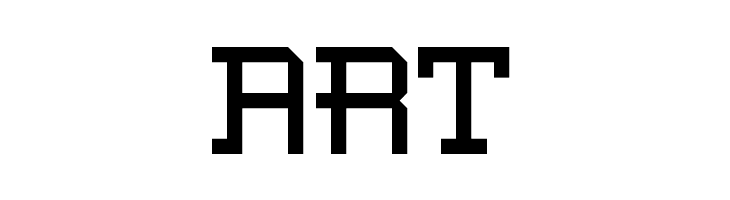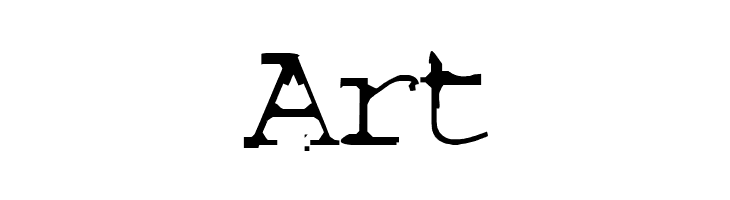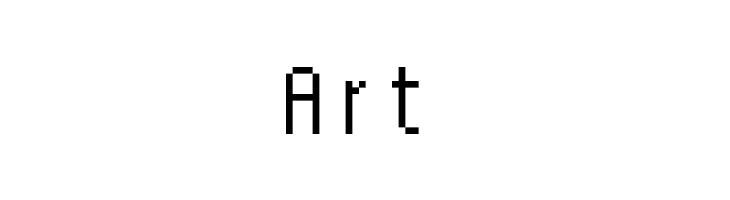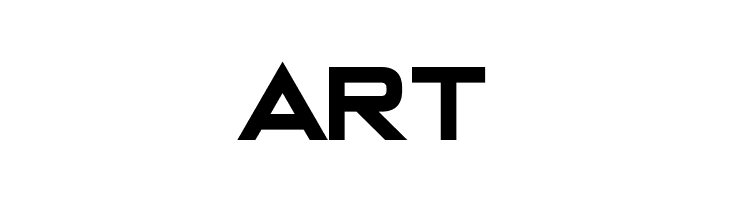
( André Felipe - www.behance.net/andfelcaslop )
A bold, geometric font with a digital, monospaced appearance.
( Banphot Nuchleang - bond.in.th/ )
A pixelated, monospaced font with a retro digital aesthetic.
( Barbara Nixon )
A classic typewriter-style font with monospaced, slightly serifed characters.
( Canale Studio, Inc. - Thomas Canale )
A distressed, monospaced font with a vintage typewriter aesthetic.
( Caveras - Cliff Modes - caveras.net )
A pixelated, monospaced font with a retro digital style.
( Caveras - Cliff Modes - caveras.net )
A pixelated, monospaced typeface with a retro digital aesthetic.
( Caveras - Cliff Modes - caveras.net )
A pixelated, monospaced font with a retro digital style.
( Caveras - Cliff Modes - caveras.net )
A pixelated, monospaced font with a retro digital aesthetic.
( Chequered Ink - chequered.ink/ )
A bold, geometric, and modern font with a monospaced appearance.
( Chequered Ink - chequered.ink/ )
A vintage typewriter-style font with monospaced, textured characters.